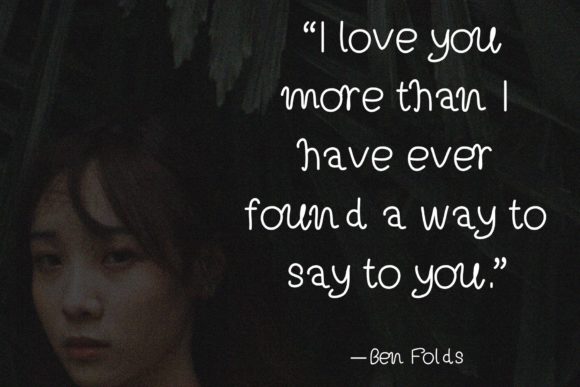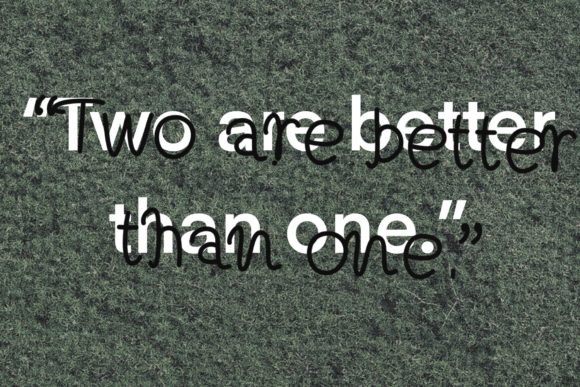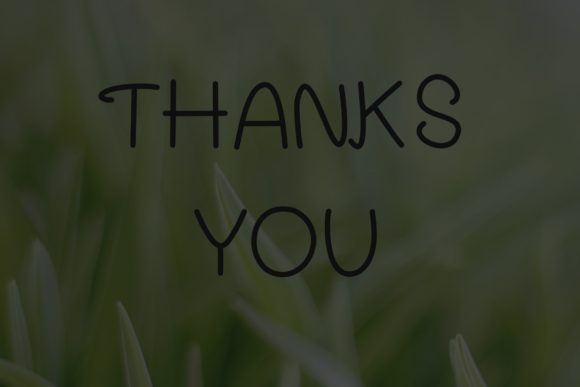
Introducing Emma Fled Font: The Ultimate Handwritten Font for Designers and Crafters
Are you tired of using the same old fonts in your designs? Look no further! Emma Fled Font is here to revolutionize your creative projects with its simple yet unique handwritten style. In this article, we’ll dive into the world of Emma Fled Font and explore its incredible versatility, features, and uses.
What is Emma Fled Font?
Emma Fled Font is a beautifully crafted handwritten font that exudes elegance and sophistication. Its simple, yet distinctive style makes it perfect for a wide range of design projects, from branding and advertising to crafting and DIY tutorials. With Emma Fled Font, you can add a personal touch to your designs and make them stand out from the crowd.
The Versatility of Emma Fled Font
One of the standout features of Emma Fled Font is its incredible versatility. This font can be used in various design contexts, including:
- Branding and Logo Design: Create stunning logos and brand identities with Emma Fled Font’s unique and memorable style.
- Digital Marketing: Use Emma Fled Font in your social media graphics, email headers, and blog posts to add a touch of personality to your online presence.
- Crafting and DIY Tutorials: Add a personal touch to your crafting and DIY tutorials with Emma Fled Font’s handwritten style, making your instructions more engaging and easy to follow.
- Wedding and Event Planning: Use Emma Fled Font in your wedding invitations, party decorations, and other event materials to create a warm and inviting atmosphere.
Features of Emma Fled Font
So, what makes Emma Fled Font so special? Here are some of its key features:
- Unique Handwritten Style: Emma Fled Font boasts a distinctive handwritten style that’s both elegant and approachable.
- Simple and Easy to Read: The font’s simplicity makes it easy to read, even at small sizes.
- Highly Versatile: Use Emma Fled Font in a variety of design contexts, from digital marketing to crafting and DIY tutorials.
- Scalable: Emma Fled Font is designed to be scalable, ensuring it looks great in any size or resolution.
Tips for Using Emma Fled Font
To get the most out of Emma Fled Font, here are some tips to keep in mind:
- Experiment with Colors: Emma Fled Font looks great in a variety of colors, so don’t be afraid to experiment and find the perfect hue for your design.
- Mix and Match: Combine Emma Fled Font with other fonts to create a unique and eye-catching design.
- Pay Attention to Spacing: Make sure to adjust the spacing between letters and words to ensure your design looks balanced and visually appealing.
In conclusion, Emma Fled Font is a game-changer for designers and crafters looking to add a personal touch to their projects. With its unique handwritten style, incredible versatility, and ease of use, Emma Fled Font is the perfect addition to your font library. So, fall in love with Emma Fled Font and use it to create spectacular designs that stand out from the crowd!